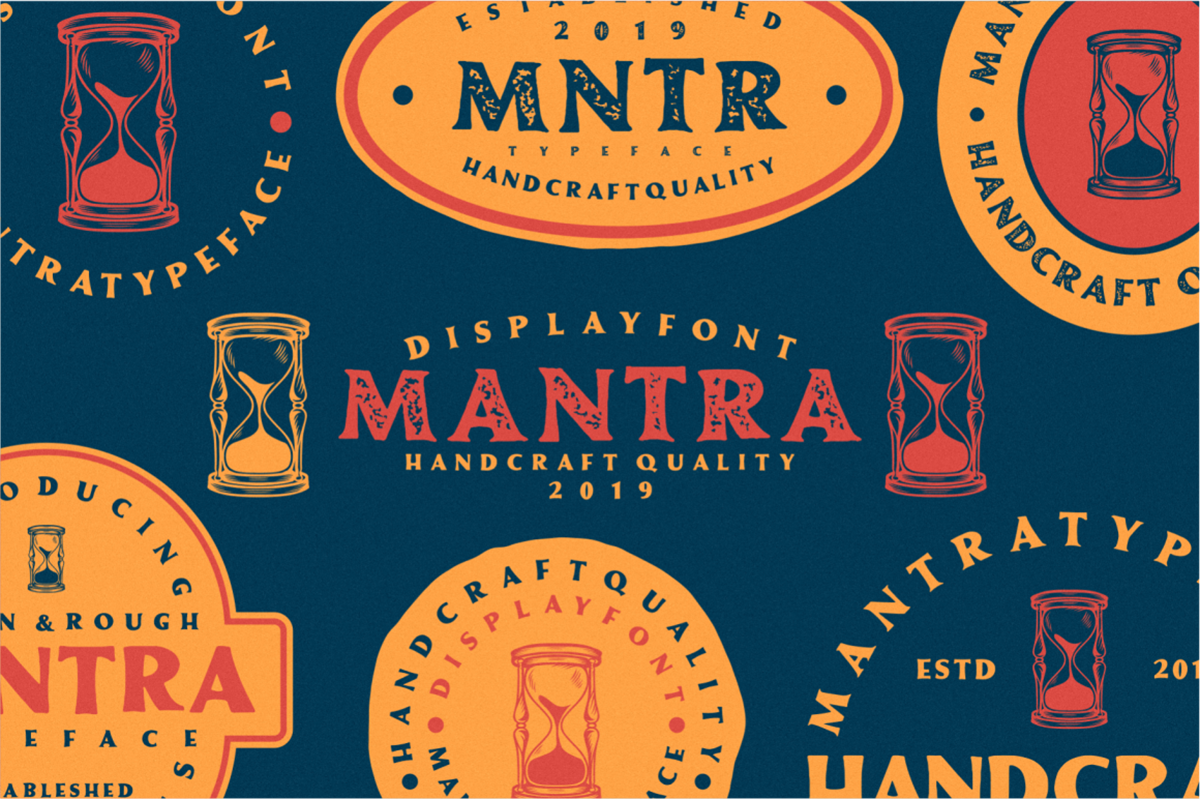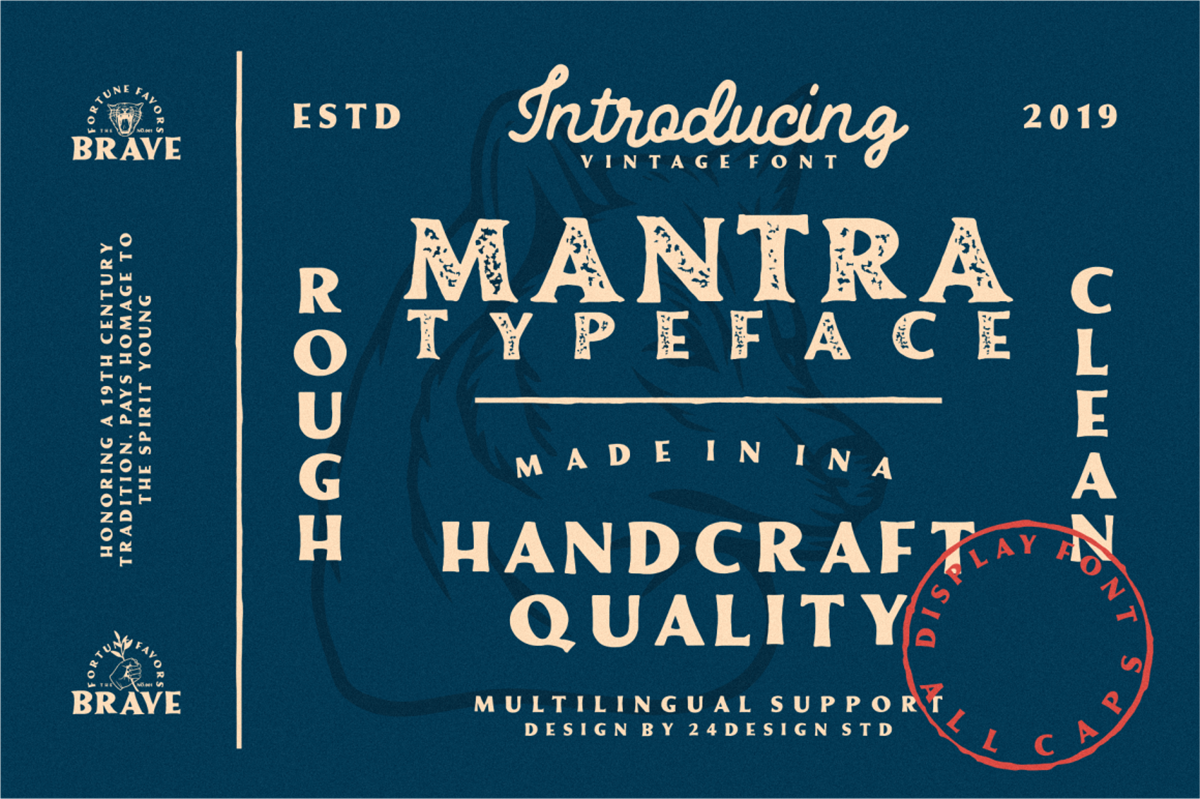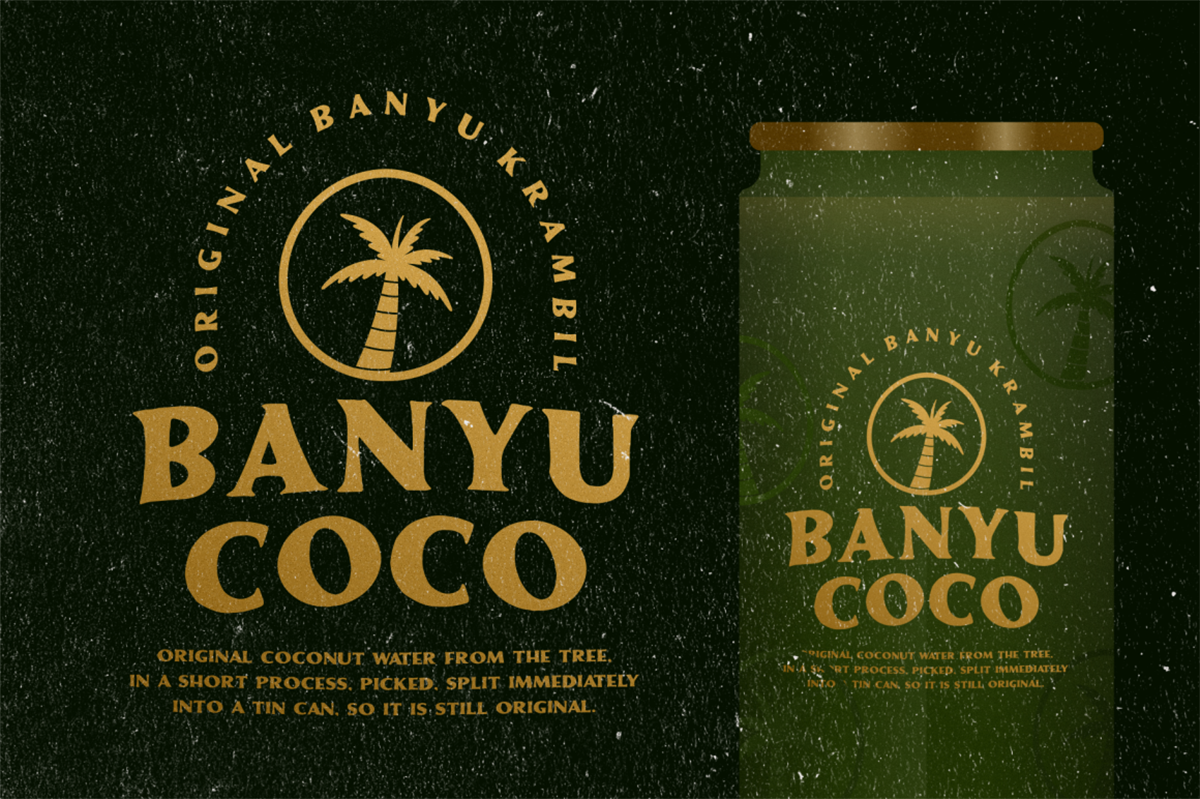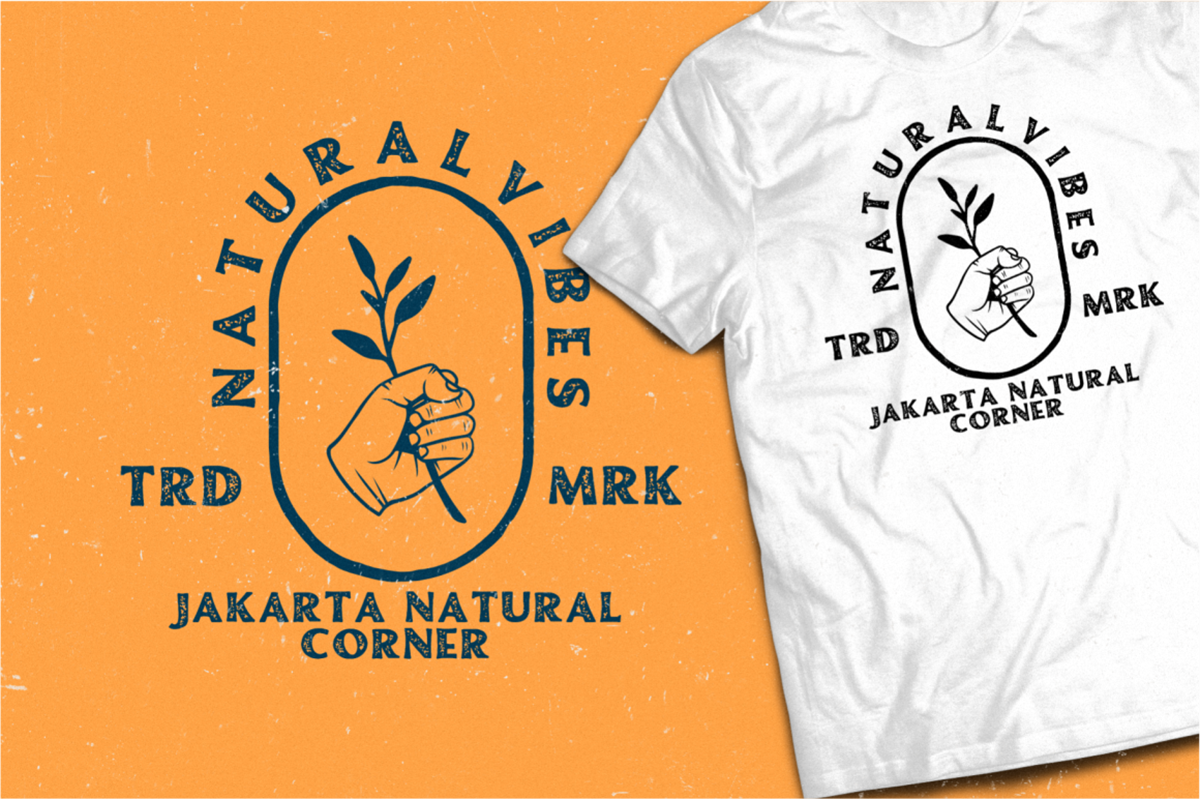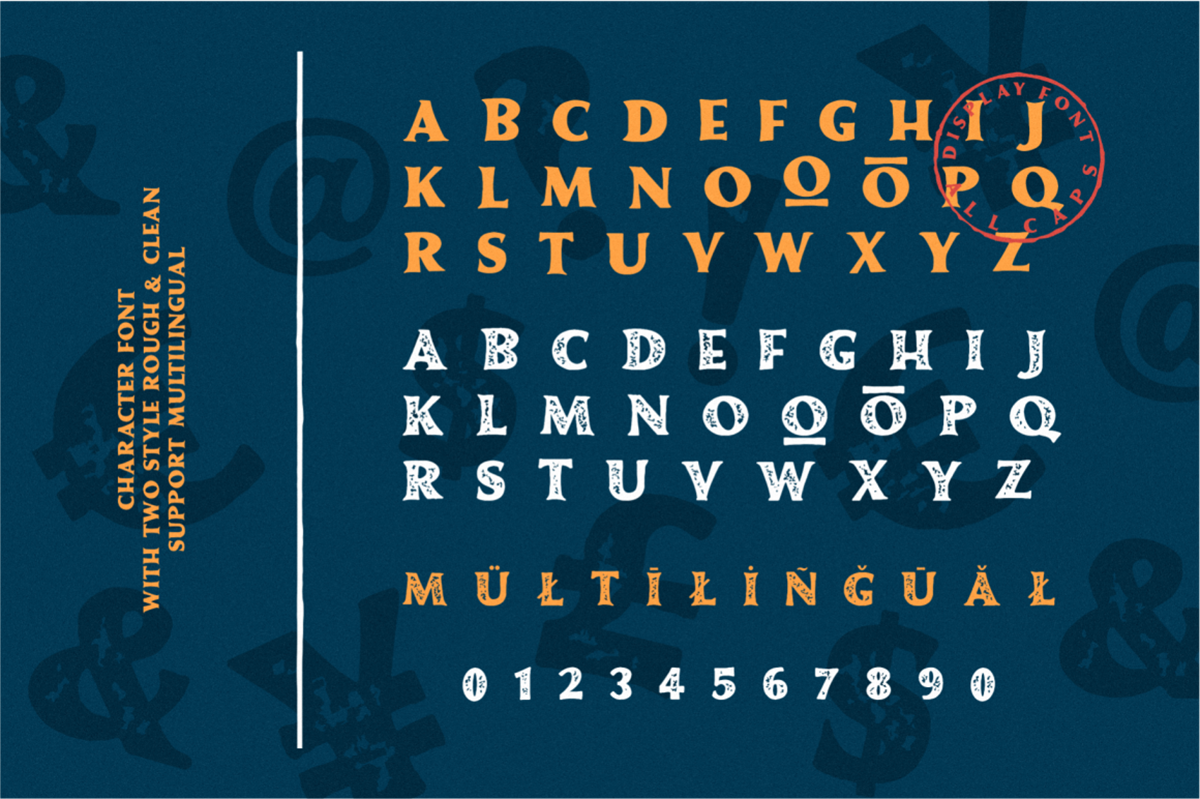
Mantra Free Font
Mantra Free Font is a classic font with a vintage touch, available in this free typeface was designed by talented Holis Majid. If you like it don’t forget to check out the full version.o styles that are both clean and rough. This font is suitable for the needs of a classic or vintage design, can be applied to logos, t-shirts, product labels, posters, or other designs.